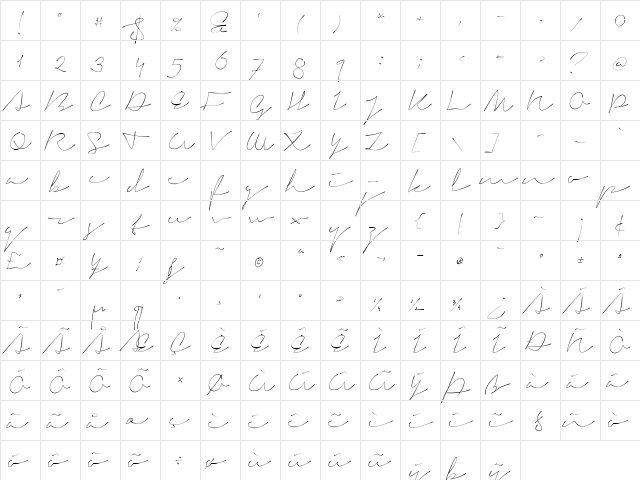
Signerica Thin Regular
Design Context for Signerica Thin Typeface
Signerica Thin is a composed and adaptable typeface that performs quietly and consistently across a wide range of design contexts. Its slender proportions lend an understated elegance to any composition.